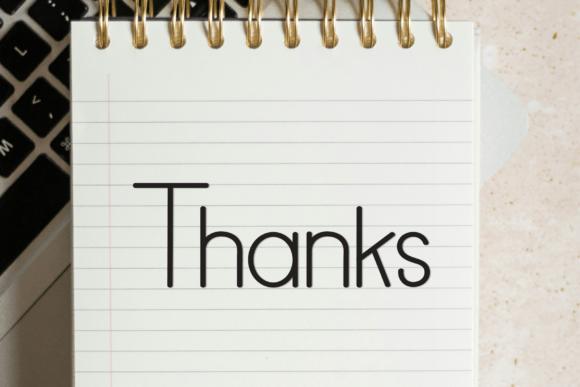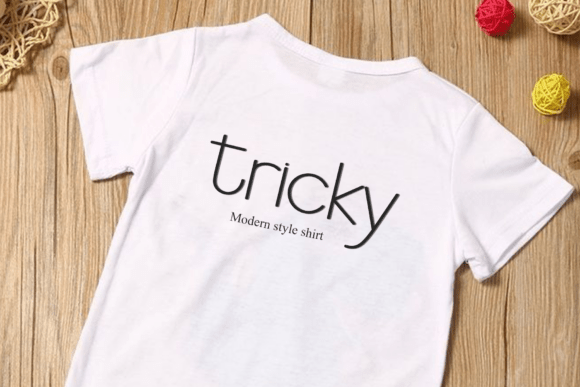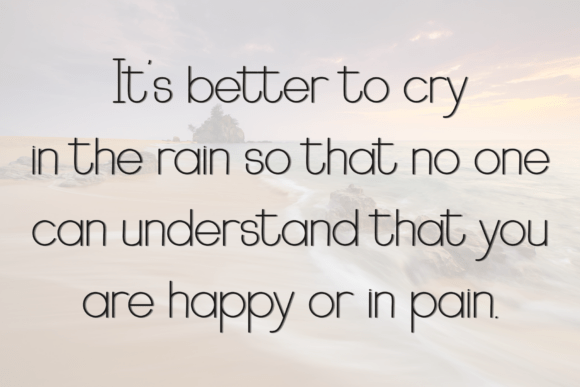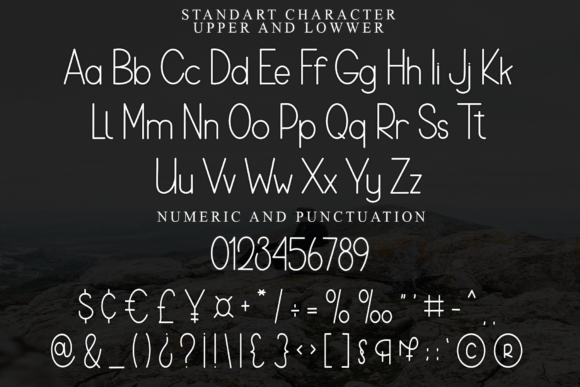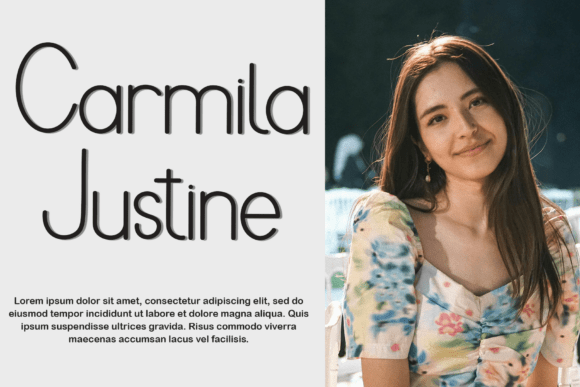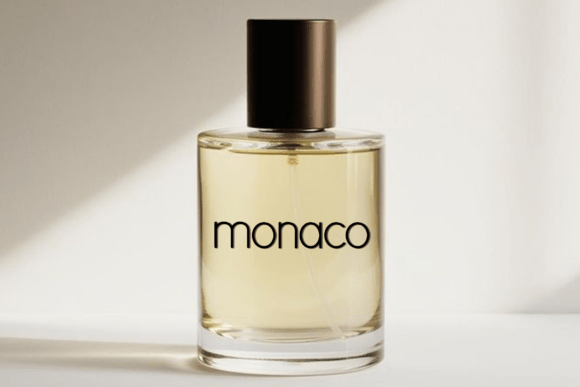
Introducing Almond Font: A Soft and Unique Typeface for Creative Projects
In the world of typography, a font can make or break a design. That’s why designers and crafters are always on the lookout for unique and versatile typefaces that can elevate their creative projects. One such font that has caught the attention of many is Almond Font. With its soft, distinctive strokes and special character, Almond Font is a beautiful and eye-catching typeface that is perfect for a wide range of design applications.
What Makes Almond Font Special?
Almond Font is designed with a soft, unique touch that sets it apart from other typefaces. Its distinctive strokes give it a special character, making it meaningful and versatile for future use. The font features a range of characters that are perfect for design projects, crafts, and other creative works. Whether you’re working on a logo, brochure, or social media graphics, Almond Font is sure to make your designs stand out.
Almond Font is a dream come true for designers and crafters who are looking for a unique and versatile typeface. With its soft, distinctive strokes and special character, this font is perfect for a wide range of creative projects. Whether you’re a professional designer or a crafter who loves to DIY, Almond Font is a great addition to your typography collection.
Use Cases for Almond Font
So, what can you use Almond Font for? The possibilities are endless! Here are some use cases to get you started:
- Logo design: Create a unique and memorable logo for your business or brand with Almond Font.
- Brochures and flyers: Use Almond Font to create eye-catching brochures and flyers that grab attention.
- Social media graphics: Add a touch of elegance to your social media graphics with Almond Font.
- Business cards: Create professional-looking business cards with Almond Font.
- Crafts: Use Almond Font to add a personal touch to your craft projects, such as handmade cards and gift tags.
Tips for Using Almond Font
Here are some tips for using Almond Font effectively:
- Pair it with other fonts: Experiment with pairing Almond Font with other fonts to create a unique and interesting contrast.
- Use it in different sizes: Almond Font looks great in different sizes, from small captions to large headings.
- Experiment with colors: Try out different colors to see what works best with Almond Font.
- Keep it simple: Don’t be afraid to keep things simple and use Almond Font on its own.
In conclusion, Almond Font is a beautiful and eye-catching typeface that is perfect for designers and crafters who are looking for a unique and versatile font. With its soft, distinctive strokes and special character, Almond Font is sure to elevate your creative projects and make them stand out. Its compatibility with various applications and versatility make it a great choice for a wide range of design applications. So why not give Almond Font a try and see what amazing designs you can create?